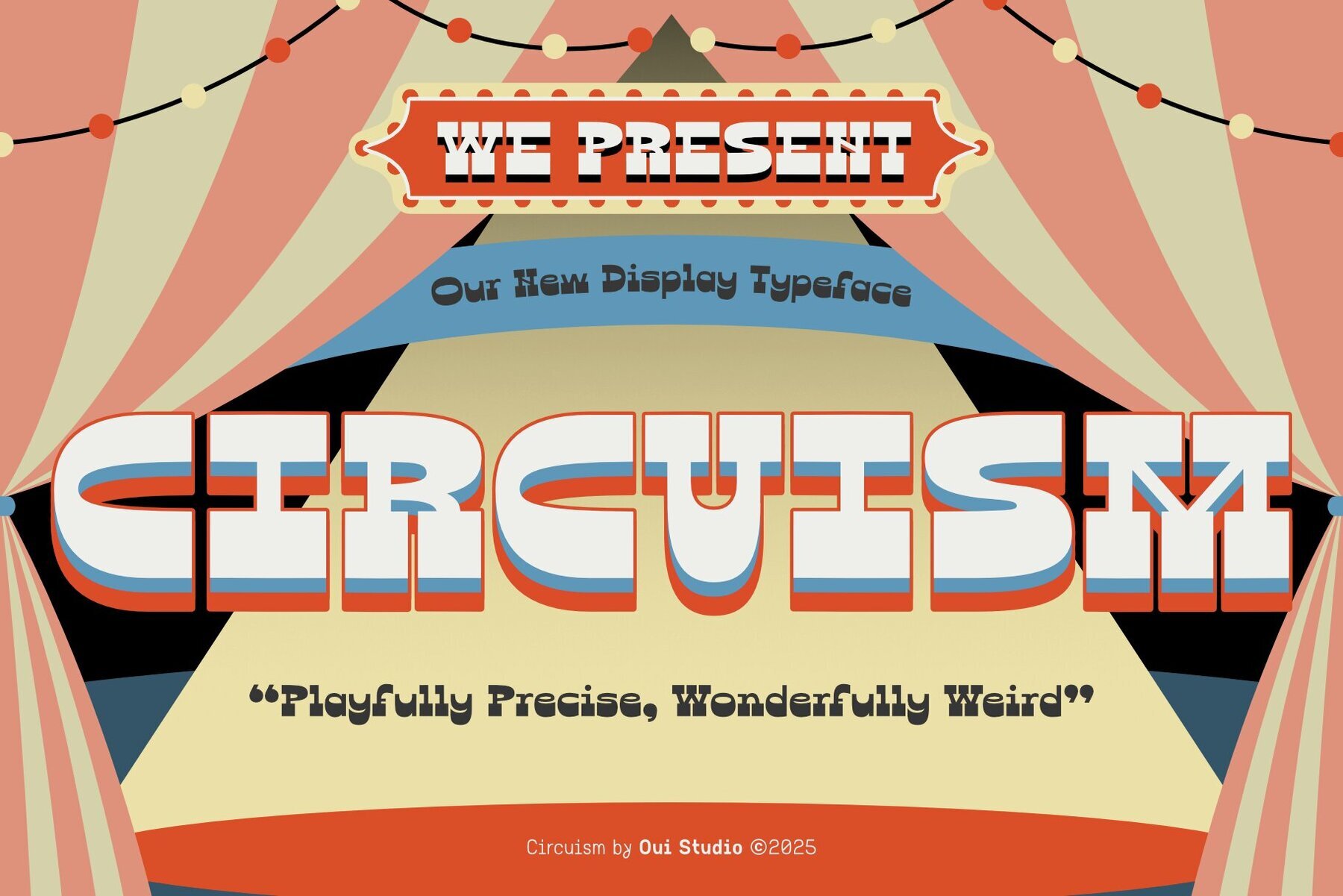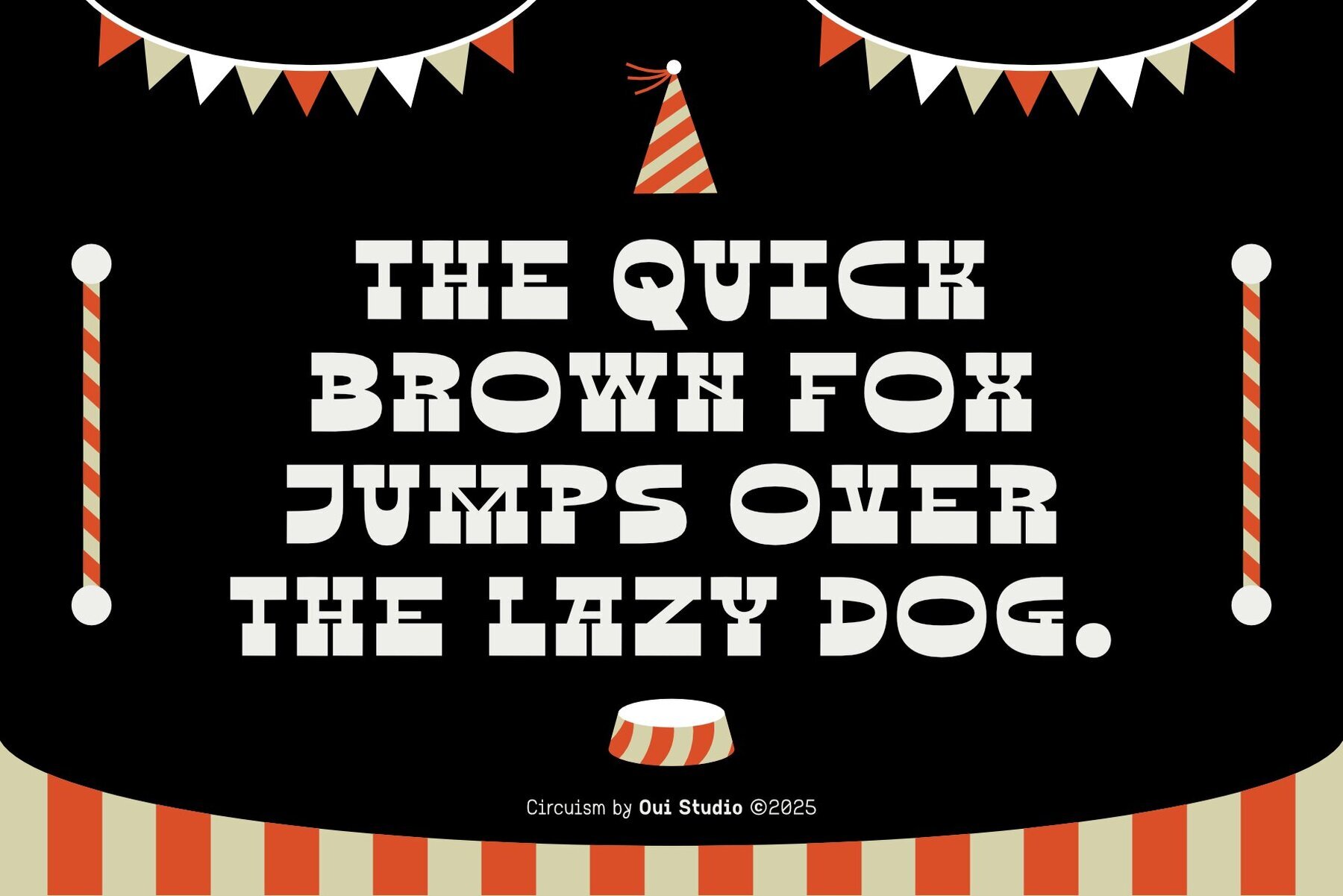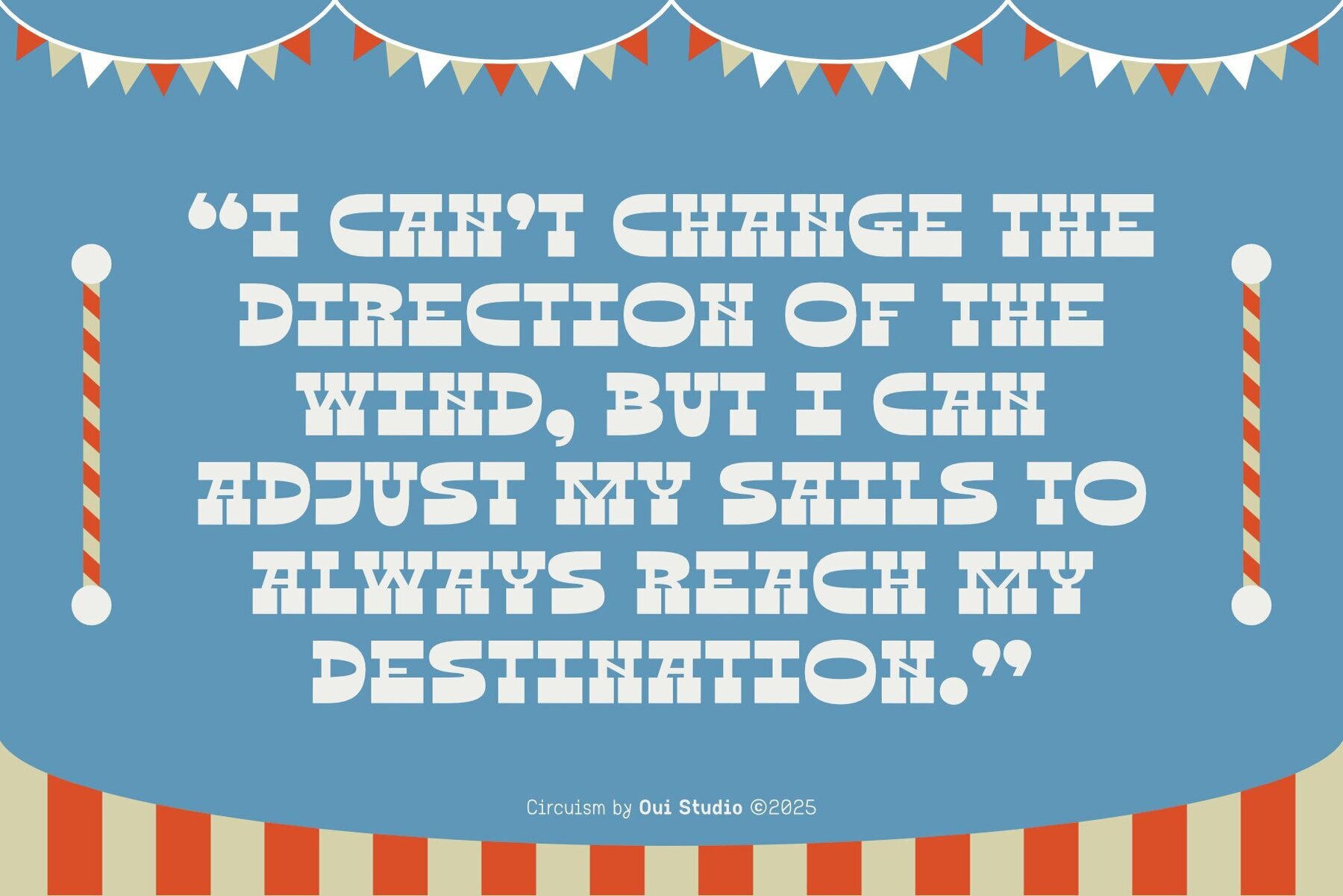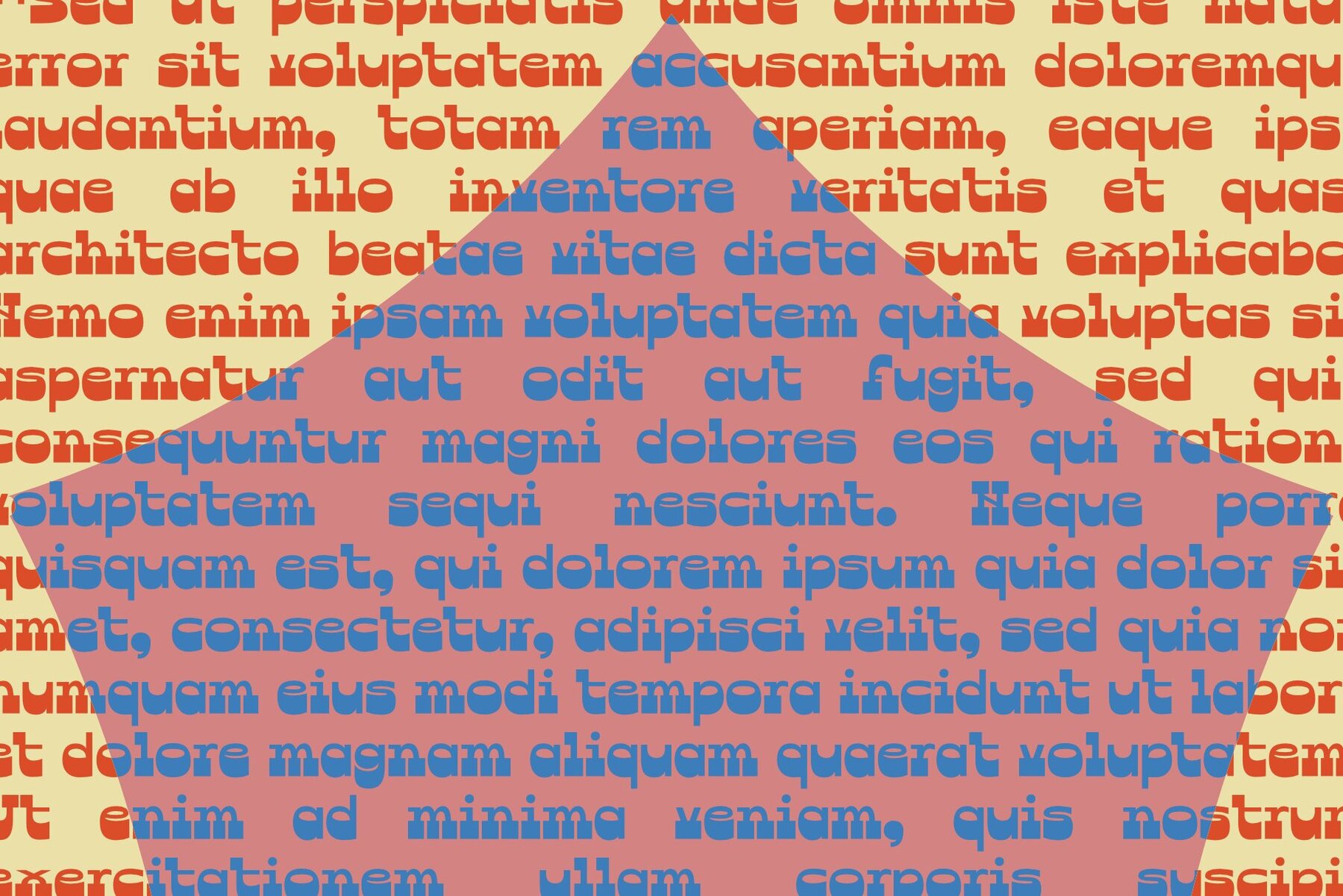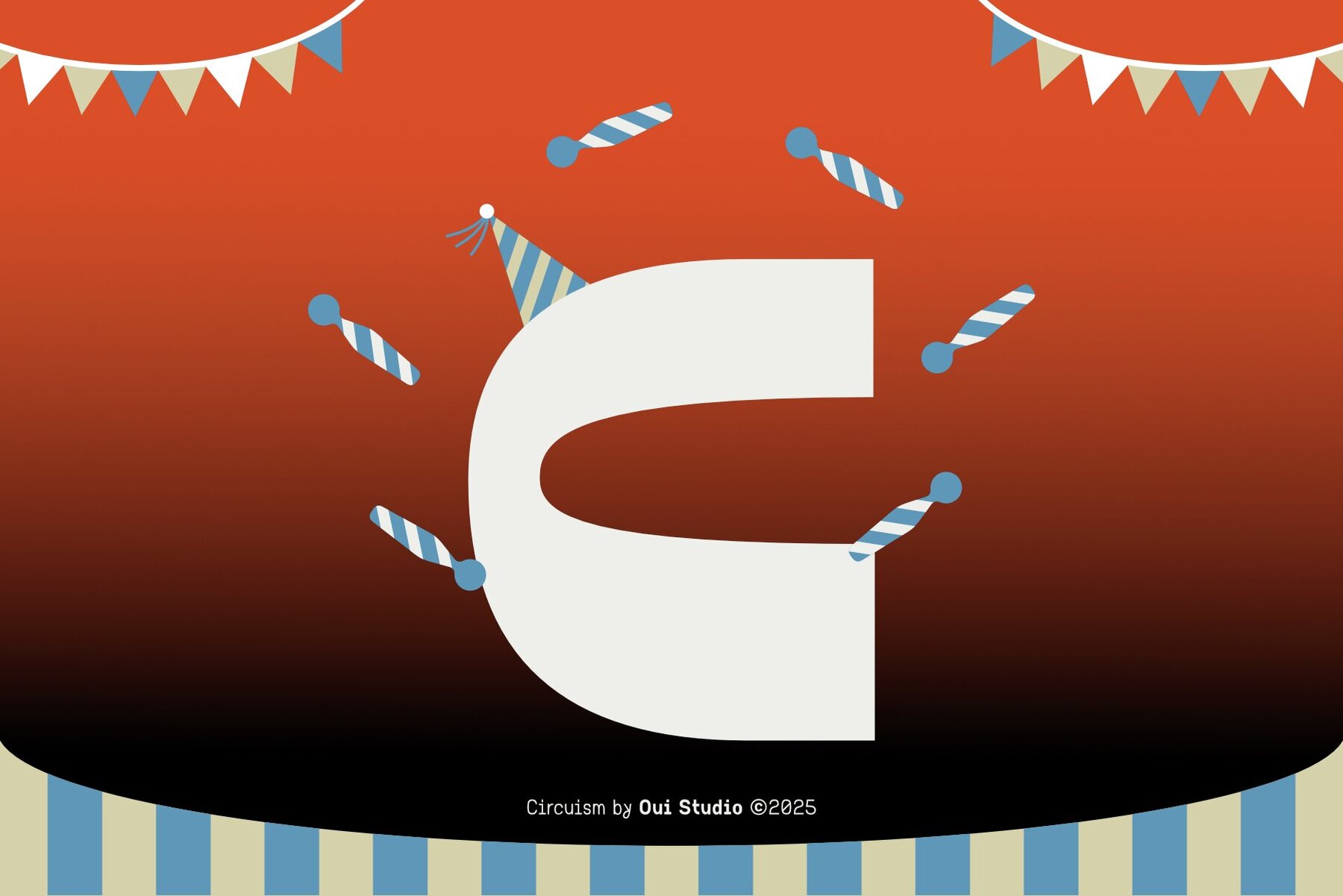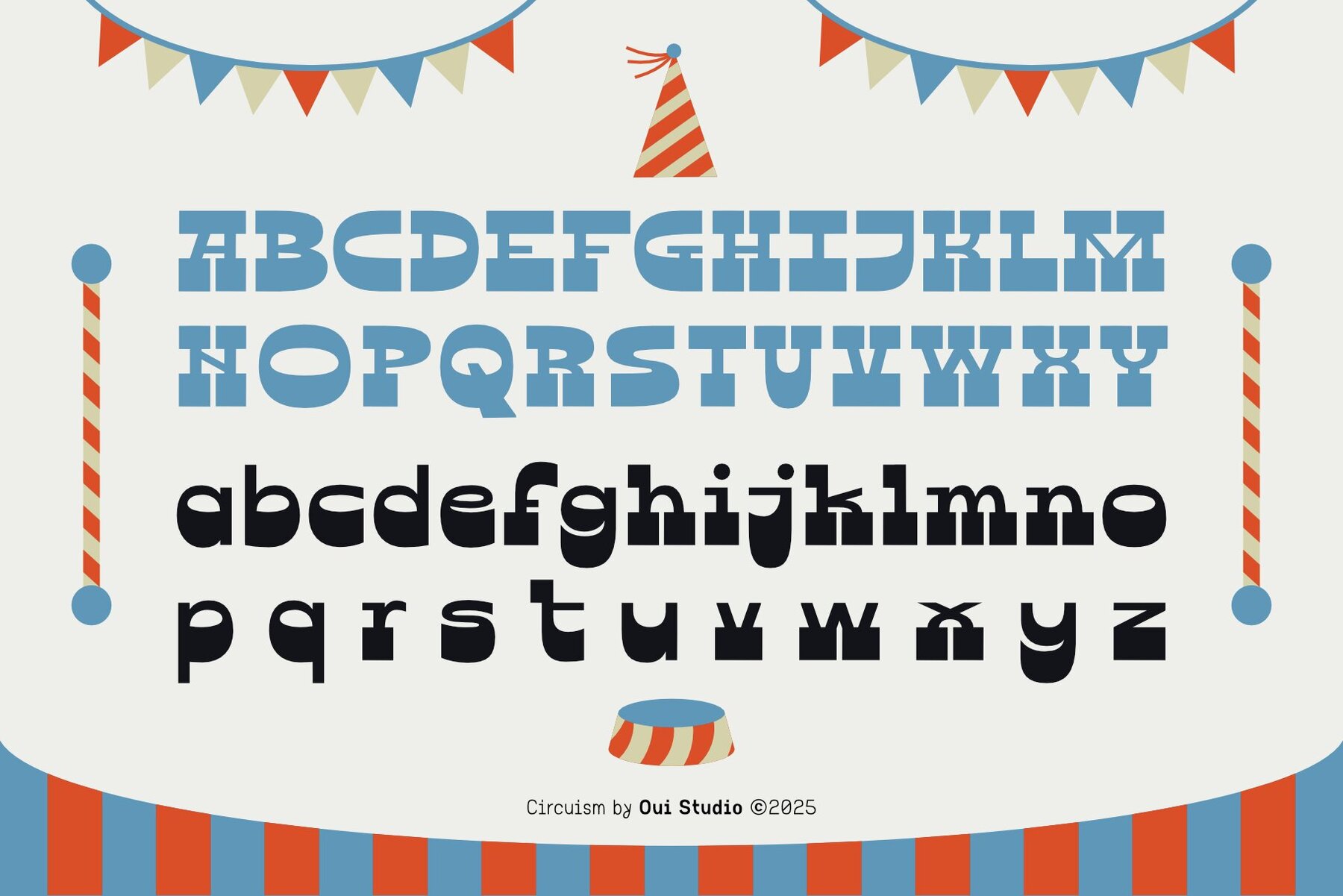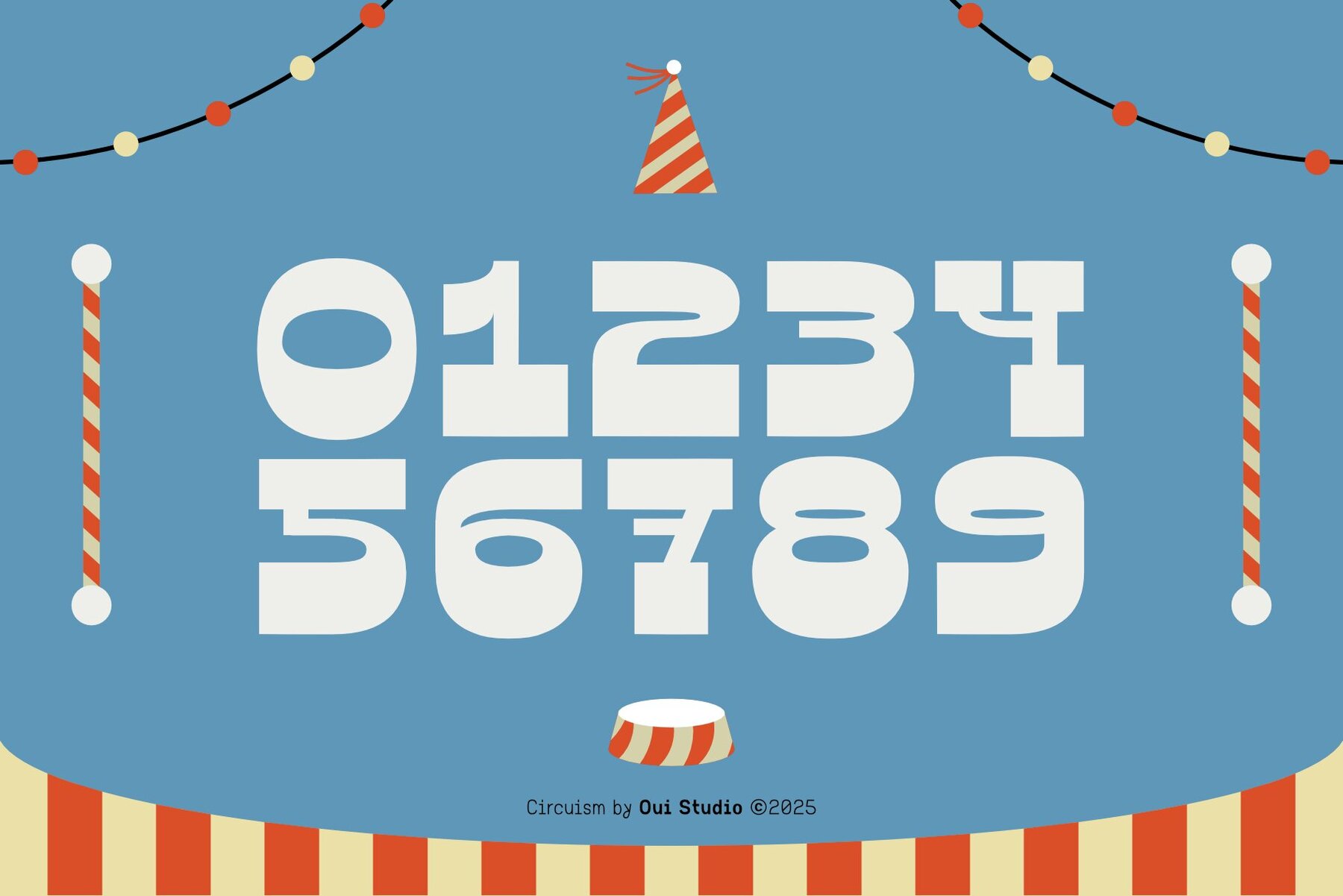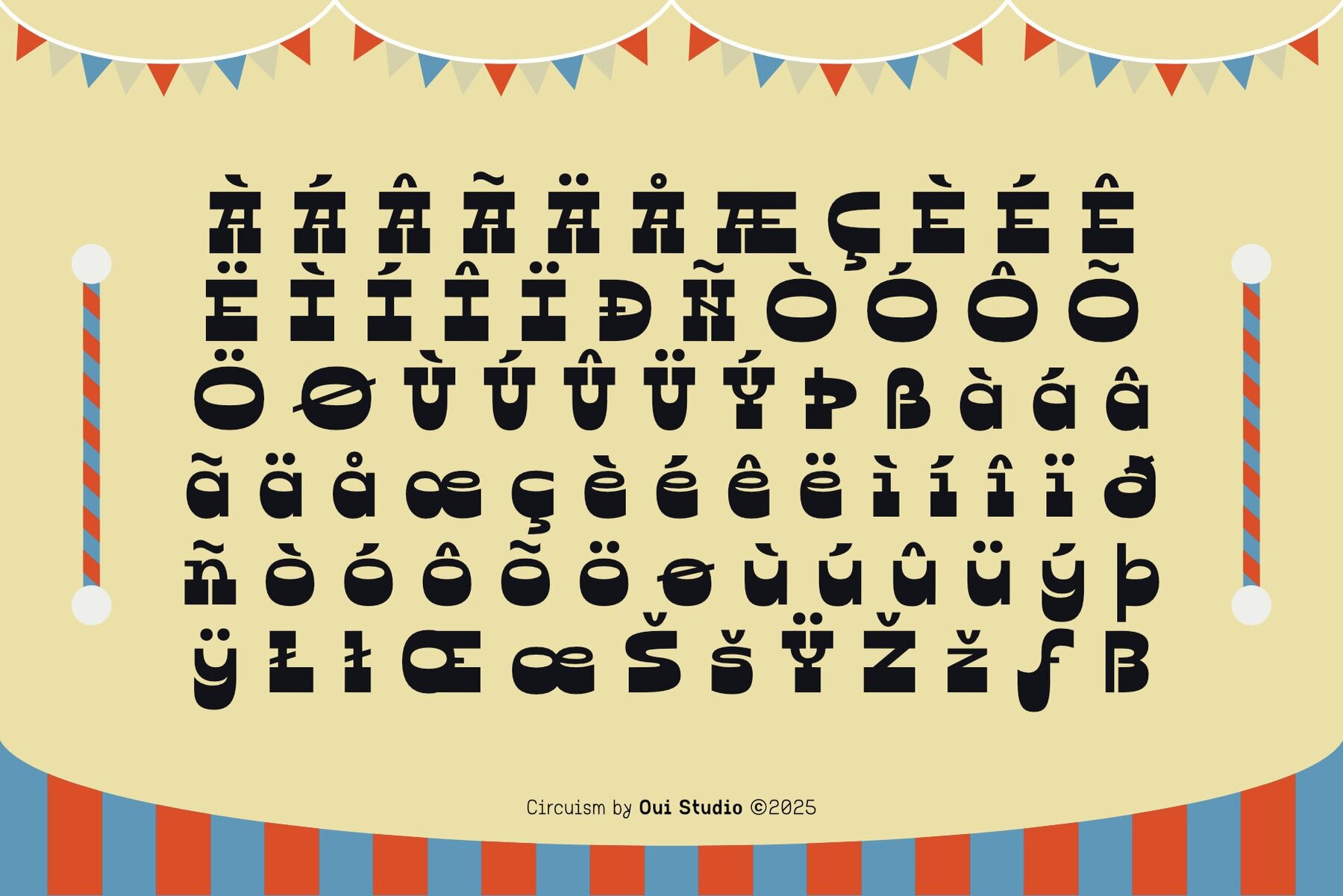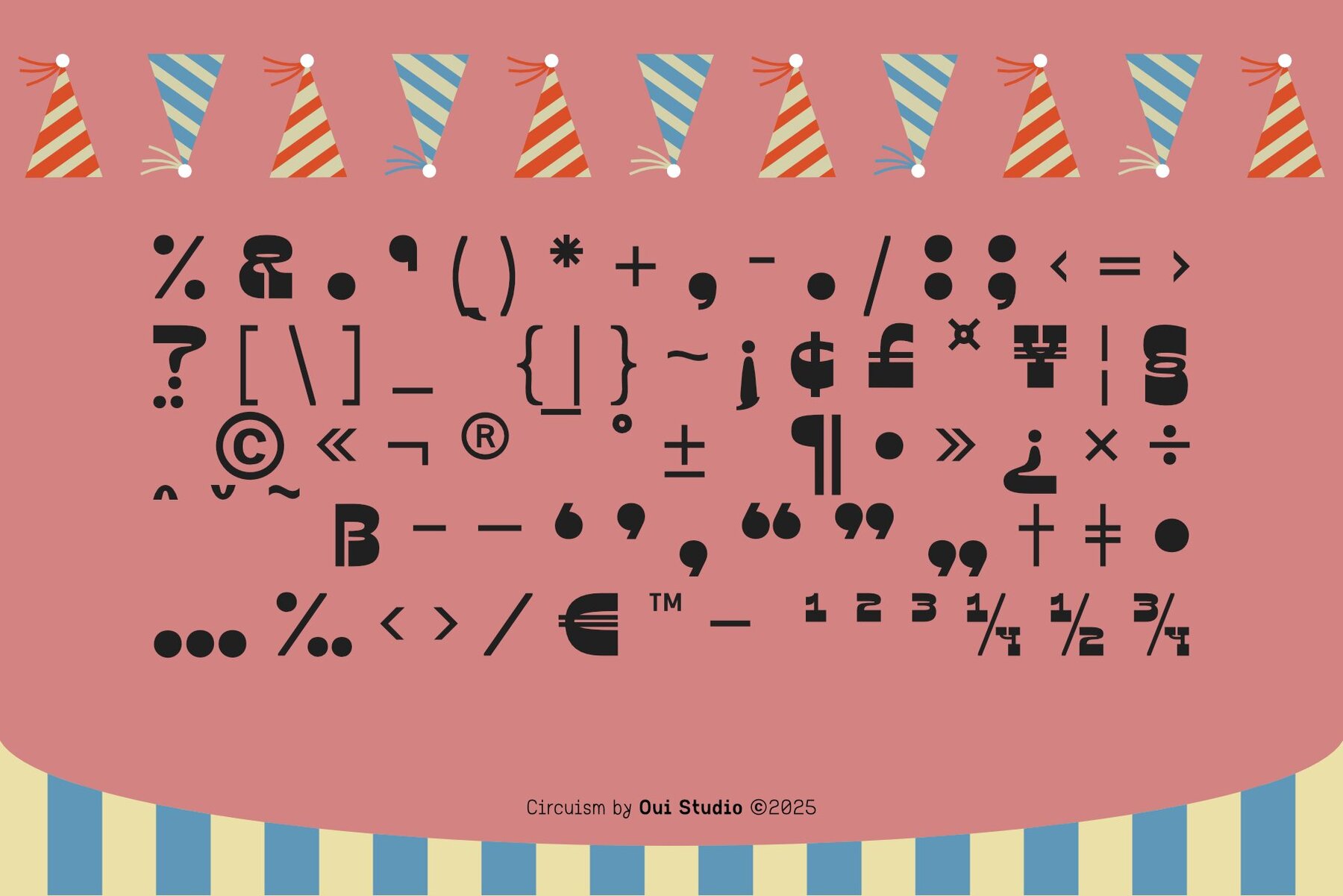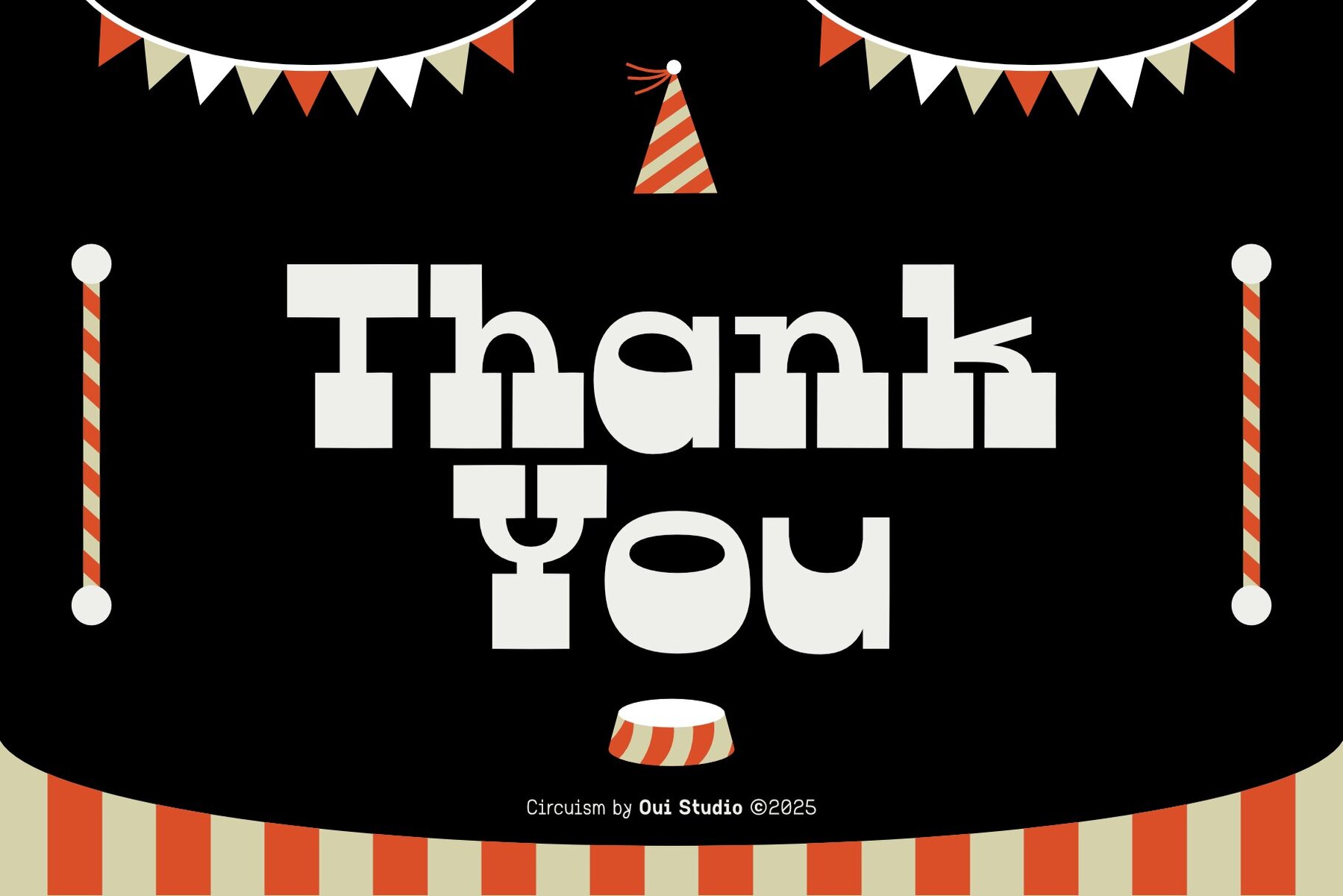
Circuism Font
Circuism Regular
The Circuism font offers a delightful addition to your design toolkit, featuring bold and bouncy display characteristics. Its fluid curves and geometric loops introduce an element of fun, making it ideal for a variety of creative projects. Perfectly suited for projects such as creative branding, eye-catching posters, and playful packaging, Circuism injects charm into kids’ projects, logos, and album covers. Every letter infuses movement and playfulness, giving words a vibrant voice that stands out. Features: Whether you’re crafting designs for pure enjoyment or aiming for a lasting impact, Circuism encourages you to explore creative boundaries.Circuism: A Playful Display Font With Bold Curves